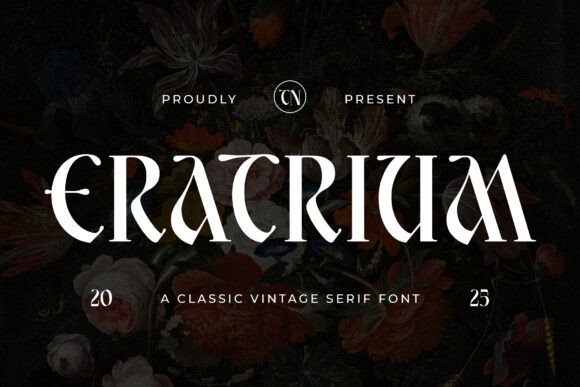
Eratrium Font: A Timeless Classic Vintage Serif for Luxurious Designs
In the world of typography, few fonts manage to capture the essence of timeless elegance and beauty. Eratrium Font is one such exceptional typeface that embodies the charm of classic vintage serifs with a touch of modern versatility. Designed for creatives and designers seeking a luxurious and nostalgic feel for their projects, Eratrium is the perfect choice for elevating designs with its refined serifs and fantasy charm.
The Essence of Eratrium Font
Eratrium is a beautifully crafted classic vintage serif font that exudes sophistication and elegance. Its refined serifs and classic typography make it an ideal choice for luxurious designs that require a touch of nostalgia and timeless charm. Whether you’re working on branding, logos, editorial designs, book covers, packaging, invitations, signage, advertising, movie titles, game interfaces, or vintage-themed projects, Eratrium is the perfect companion for your creative journey.
Key Features of Eratrium Font
Eratrium comes with a wide range of features that make it a versatile and creative typeface. Some of its key features include:
- Uppercase and lowercase letters for comprehensive typography
- Punctuation marks for clear and effective communication
- Numerals for numerical representations
- Ligatures for creative and artistic expressions
- Alternates for varied and unique design options
Design Versatility with Eratrium
Eratrium is designed to offer maximum flexibility and creativity for designers. Its classic vintage serif structure makes it perfect for luxurious and nostalgic designs, while its modern touch allows it to adapt to various design requirements. Whether you’re creating a brand identity, designing a book cover, or crafting a vintage-themed project, Eratrium provides the perfect blend of elegance and versatility.
Example Use Cases:
- Branding and logos: Create a luxurious and sophisticated brand identity with Eratrium’s refined serifs and classic charm.
- Editorial designs: Elevate your editorial designs with Eratrium’s elegant and readable typography.
- Book covers: Design stunning book covers with Eratrium’s vintage charm and classic serif structure.
- Packaging: Add a touch of luxury and sophistication to your packaging designs with Eratrium.
- Invitations: Create beautiful and elegant invitations with Eratrium’s refined typography.
Why Choose Eratrium Font?
Eratrium is the perfect choice for designers and creatives seeking a vintage and classic serif font for their projects. Here are some reasons why you should choose Eratrium:
- Timeless elegance: Eratrium’s classic vintage serif structure ensures that your designs remain timeless and elegant.
- Versatility: Eratrium’s modern touch and range of features make it adaptable to various design requirements.
- Creative flexibility: With ligatures, alternates, and a wide range of typographic elements, Eratrium offers maximum creative flexibility.
- Luxurious designs: Eratrium’s refined serifs and classic charm make it perfect for luxurious and nostalgic designs.
Eratrium Font is a beautifully crafted classic vintage serif font that embodies timeless elegance and beauty. With its refined serifs, fantasy charm, and modern versatility, Eratrium is perfect for luxurious and nostalgic designs. Whether you’re a designer or creative, Eratrium offers the perfect blend of elegance and versatility for elevating your designs. Get Eratrium Font today and experience the magic of vintage typography!